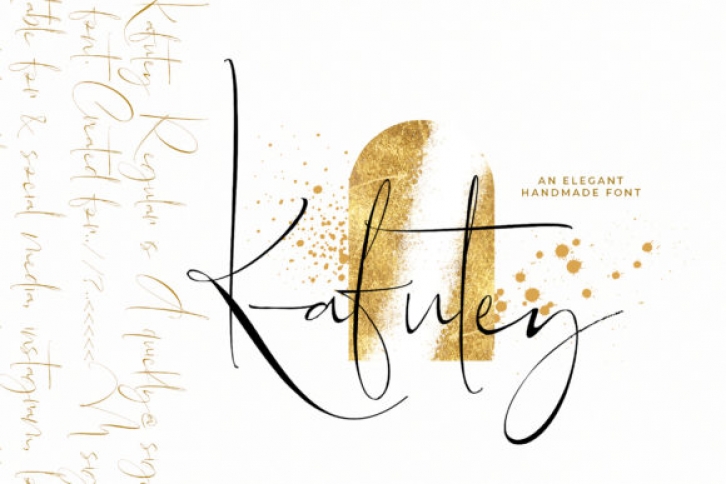
Kafutey is a stylish and delicate script font. It has a clean, thin and smooth vibe and it will be a hit for any design that you want to add it to. Use this font for your designs and explore its endless possibilities.